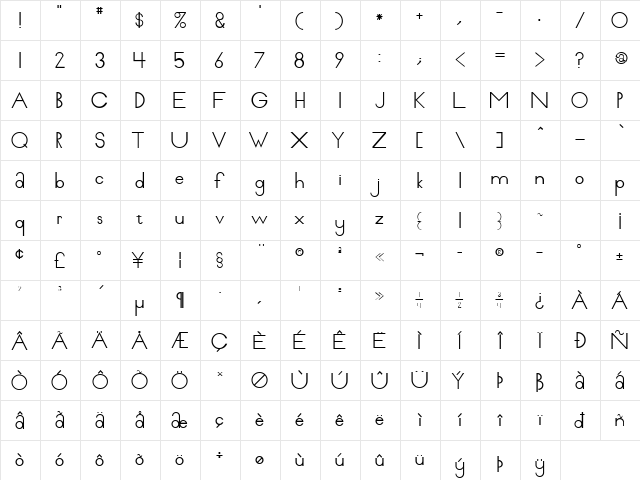
Pabloco Regular
Design Context for Pabloco Typeface
Pabloco offers clean, dependable letterforms without strong stylistic allegiance, making it a practical choice for designers who need flexibility.
Pro Tip: Use Pabloco in both headline and body roles to test its range before committing to a single application.